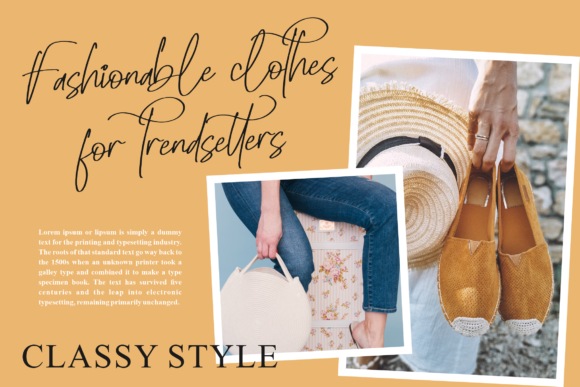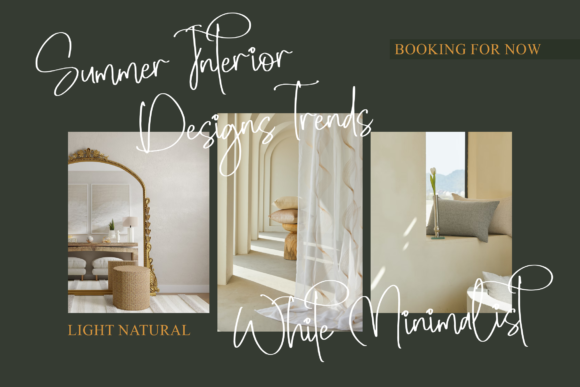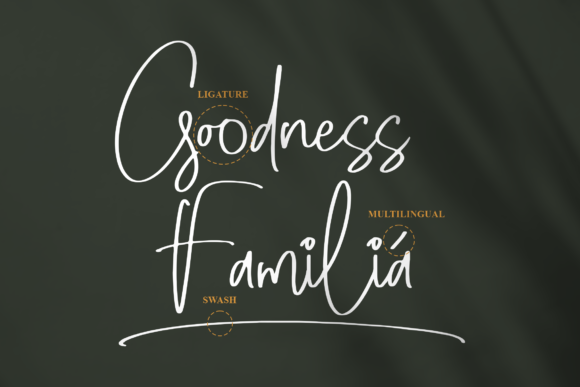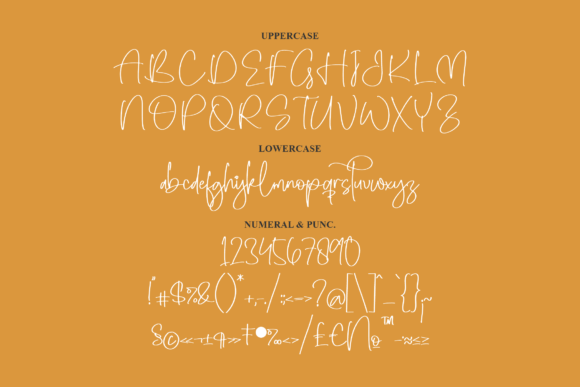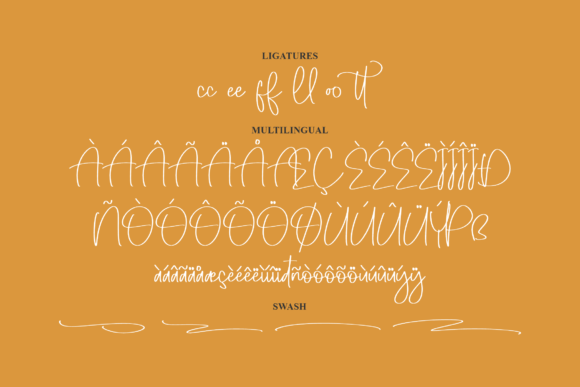
About Montterule Font
Introducing “Montterule,” a quirky handwritten font that captures the spontaneous and natural characteristics of handwriting, adding a unique and playful touch to your projects. This font is designed to bring out the charm and individuality that comes with handwritten elements, making it a perfect choice for a wide range of creative applications.
The quirkiness of “Montterule” makes it a versatile font suitable for various design contexts. Imagine using it on websites to infuse a friendly and approachable vibe into your content. Visualize it on SVG designs, where its handwritten style adds a personalized touch to graphics. Picture it enhancing home decor items, adding a playful and whimsical element to your designs.
“Montterule” is not just limited to digital use; it’s also a great fit for branding, blogs, logos, invitations, and more. Its handwritten charm can bring a sense of authenticity and creativity to these applications, making your designs stand out with a touch of personality.
As a PUA encoded font, “Montterule” provides easy access to its amazing glyphs and ligatures, offering you additional design possibilities. Add this quirky handwritten font to your toolkit, and let it effortlessly enhance your projects with its playful and natural appeal.